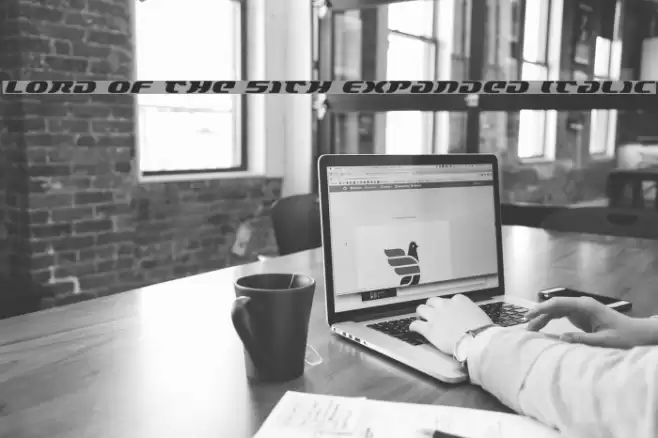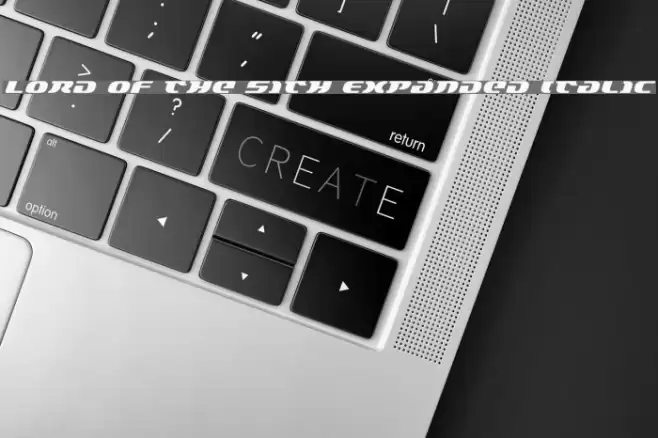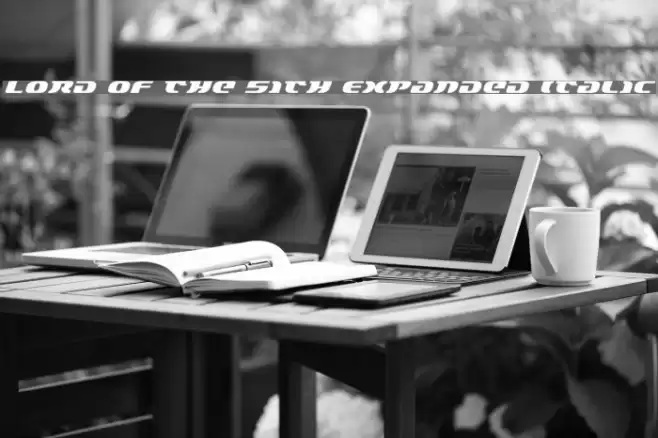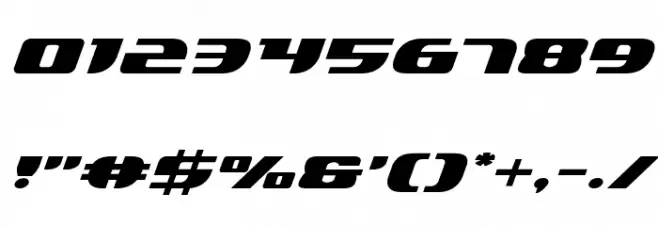
Lord of the Sith Expanded Italic Font
Lord of the Sith Expanded Italic Description
This font features a bold and futuristic design with an italicized slant, giving it a dynamic and forward-moving appearance. The characters are expanded, providing a sense of strength and presence. The strokes are thick and consistent, with a high contrast between the bold lines and the negative space. The overall style is modern and somewhat aggressive, suitable for projects that require a strong visual impact. The font includes a full set of uppercase and lowercase letters, numerals, and a variety of special characters, making it versatile for different design needs.
A bold, expanded, and italicized futuristic font with high contrast from Uncategorized fonts.
- Proposed Projects: Ideal for sci-fi themed posters, video game titles, branding for tech companies, and any project needing a bold, modern look.